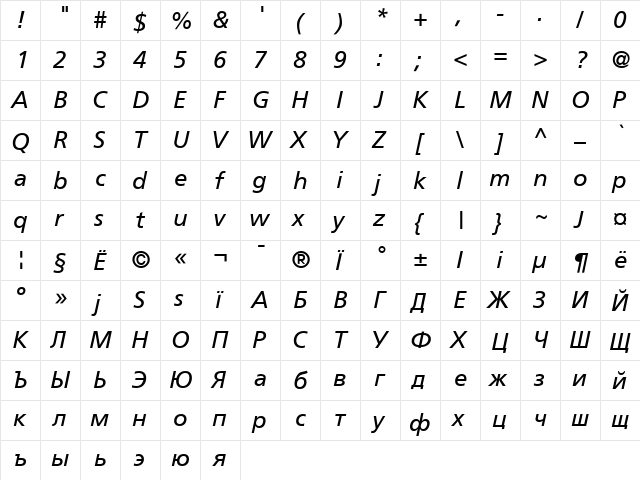
AG Foreigner-Italic Medium
Design Context for AG Foreigner-Italic Typeface
AG Foreigner-Italic takes a measured approach to typography — its balanced proportions and neutral character make it a reliable workhorse for both digital and print work. The dynamic lean of this cut emphasises speed and emphasis in any layout.